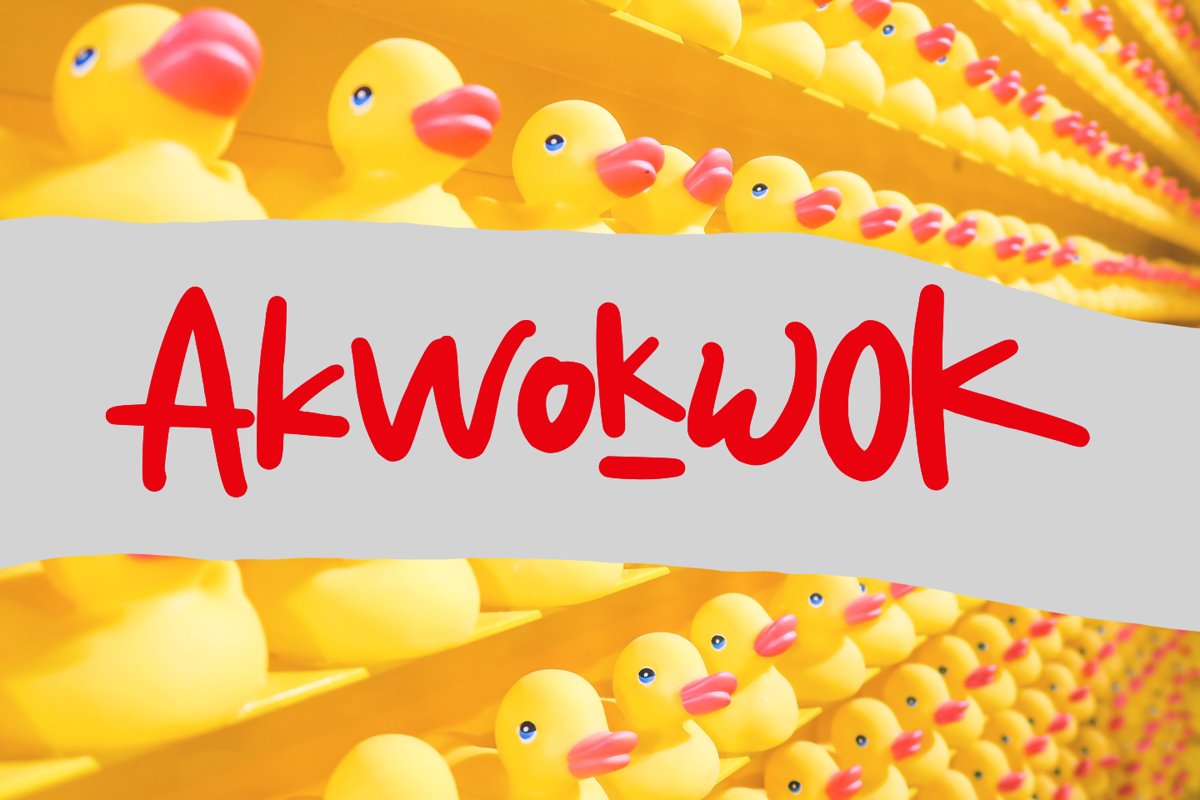
Akwokwok Playful Font
Akwokwok
this is a cute and playful font. contains 3 alternate for each lowercase glyph. just combine with uppercase and you will found its uniqueness.